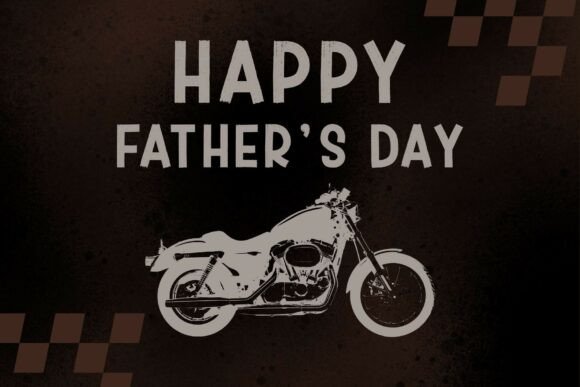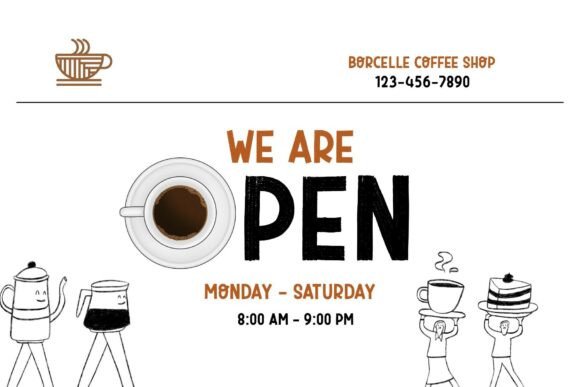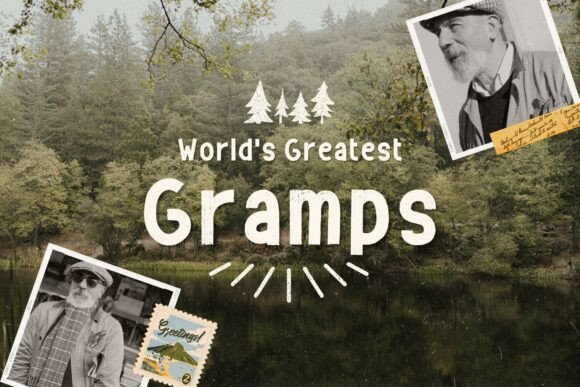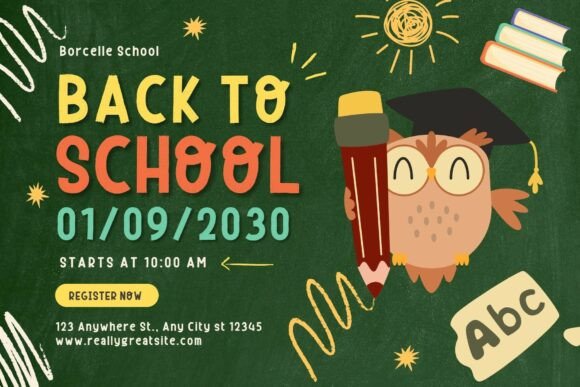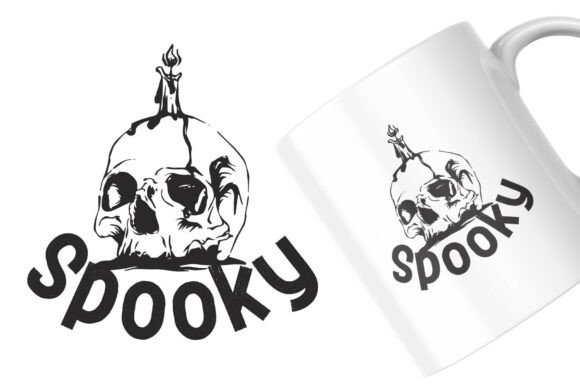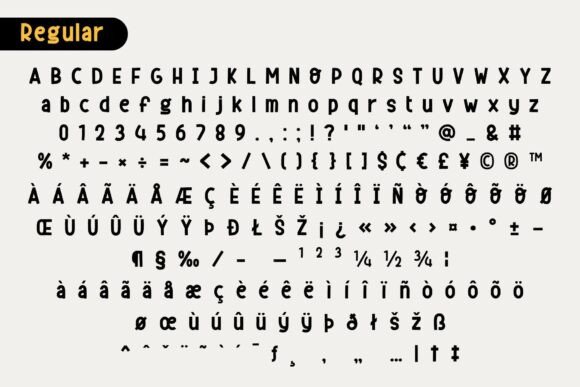
Get Ready for a Spooky Good Time with Fox Dark Font
As a designer, there’s nothing quite like the thrill of creating something that captures the essence of the spooky season. The sound of creaking doors, the flickering of jack-o-lanterns, and the eerie howls of the night – it’s the perfect time to tap into your creative side and bring a little magic to your designs. And what better way to do that than with the perfect font?
Enter Fox Dark Font, a bold, handcrafted font that’s equal parts playful and spooky. With its rough, textured letterforms and subtle grainy details, Fox Dark Font brings a fun and friendly Halloween vibe to your designs without feeling too scary. Perfect for Halloween invitations, posters, children’s books, product packaging, or social media graphics, this font is a valuable addition to any designer’s toolkit.
Key Features of Fox Dark Font
- Font Family: Fox Dark is a sans-serif font family.
- Font Sizes: Fox Dark comes in 6 different font sizes, ranging from 12 to 48 points.
- Resolution: Suitable for both screen and print use at resolutions up to 300 DPI.
- Unique Characteristics: Features a unique blend of modern and industrial design elements, with a focus on clean lines and minimal ornamentation.
- Font Styles: Includes regular, bold, italic, and bold-italic styles for added versatility.
Review of Fox Dark Font
Overall, I’d say Fox Dark Font is a decent addition to any designer’s toolkit. Here are some of the things that work well: ✨
- It’s incredibly versatile and can be used for a wide range of projects, from logos to digital products.
- The font is highly customizable, with a range of weights and styles to choose from.
- It’s well-suited for modern designs, with a sleek and sophisticated aesthetic.
However, there are also some limitations to consider: ⚠️
- The font may not be as readable at very small sizes, which could be a problem for certain designs.
- Some users may find the font a bit too bold or overpowering, which could affect the overall balance of a design.
Overall, I’d say Fox Dark Font is a solid choice for designers who are looking for a versatile and modern font. While it may have some limitations, it’s definitely worth considering for your next project. Just be sure to test it out at different sizes and in different contexts to get a sense of how it will work for your specific design needs.
For best results, use Fox Dark Font in headings and titles to create a dramatic effect.
It’s also great for creating a modern and edgy aesthetic in designs.
Experiment with different font sizes and colors to find the perfect balance.
Alternatives to Fox Dark Font
1. Montserrat Bold
Montserrat Bold is a sans-serif font that is great for titles and headings. It’s highly legible and has a strong, bold feel. Use it for headings, titles, and short paragraphs. It’s more versatile than Fox Dark Font and can be used in a wider range of contexts.
Comparison: Montserrat Bold is more modern and has a more open feel than Fox Dark Font, which can make it more suitable for contemporary designs. However, Fox Dark Font has a slightly more dramatic feel that can be beneficial for designs that require a stronger emphasis.
2. Inter Bold
Inter Bold is a highly legible sans-serif font that is great for body text and titles. It has a clean, modern feel and is highly versatile. Use it for body text, titles, and long paragraphs. It’s a great choice for designs that require a clean and modern look.
Comparison: Inter Bold is more legible than Fox Dark Font, especially in smaller sizes. However, Fox Dark Font has a more dramatic feel that can be beneficial for designs that require a stronger emphasis.
3. Arial Black
Arial Black is a sans-serif font that is great for titles and headings. It has a bold, dramatic feel and is highly legible. Use it for headings, titles, and short paragraphs. It’s a great choice for designs that require a strong, bold look.
Comparison: Arial Black is more dramatic than Fox Dark Font, but can appear less sophisticated in some contexts. Fox Dark Font has a more refined feel that can be beneficial for designs that require a more subtle look.
4. Playfair Display
Playfair Display is a serif font that is great